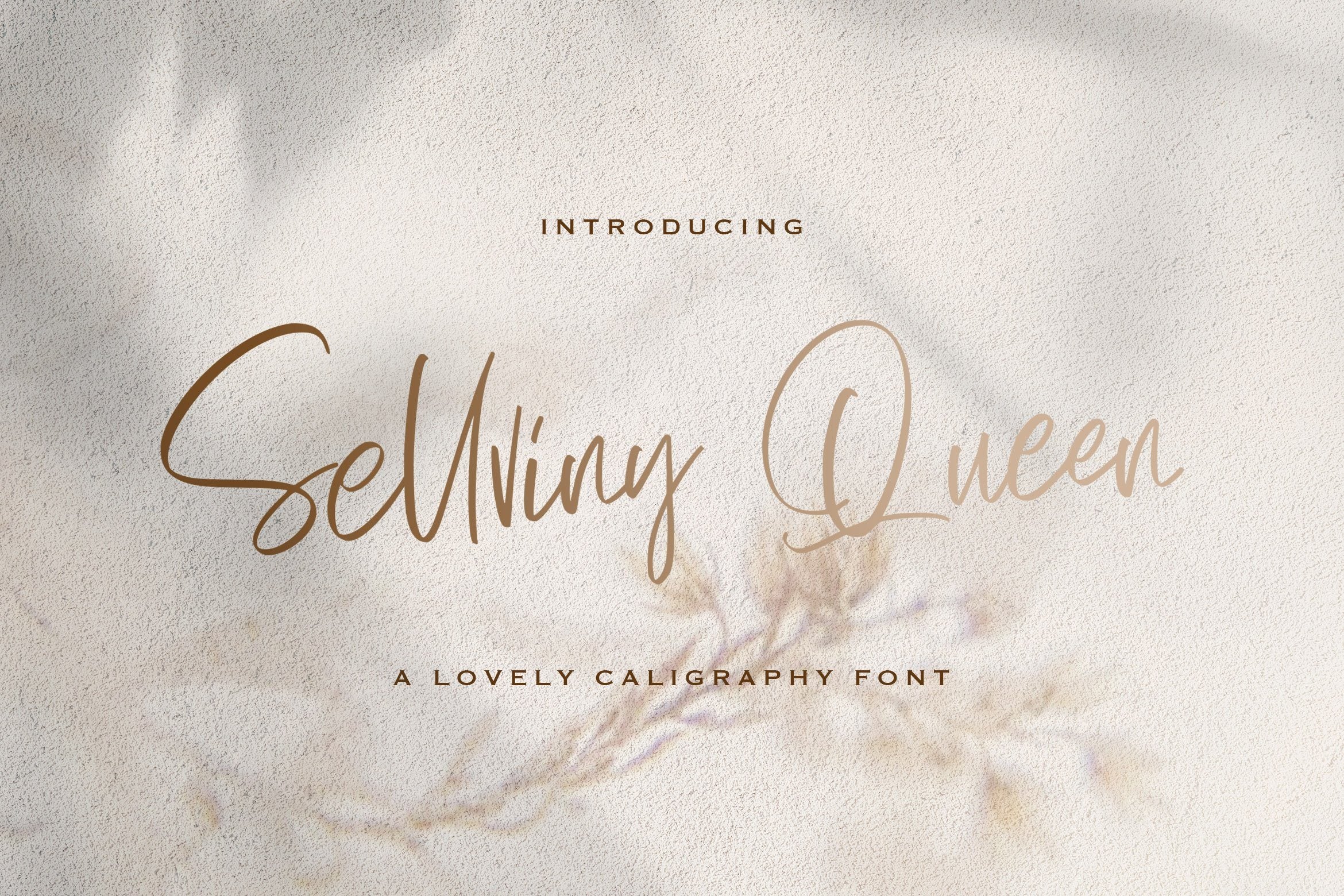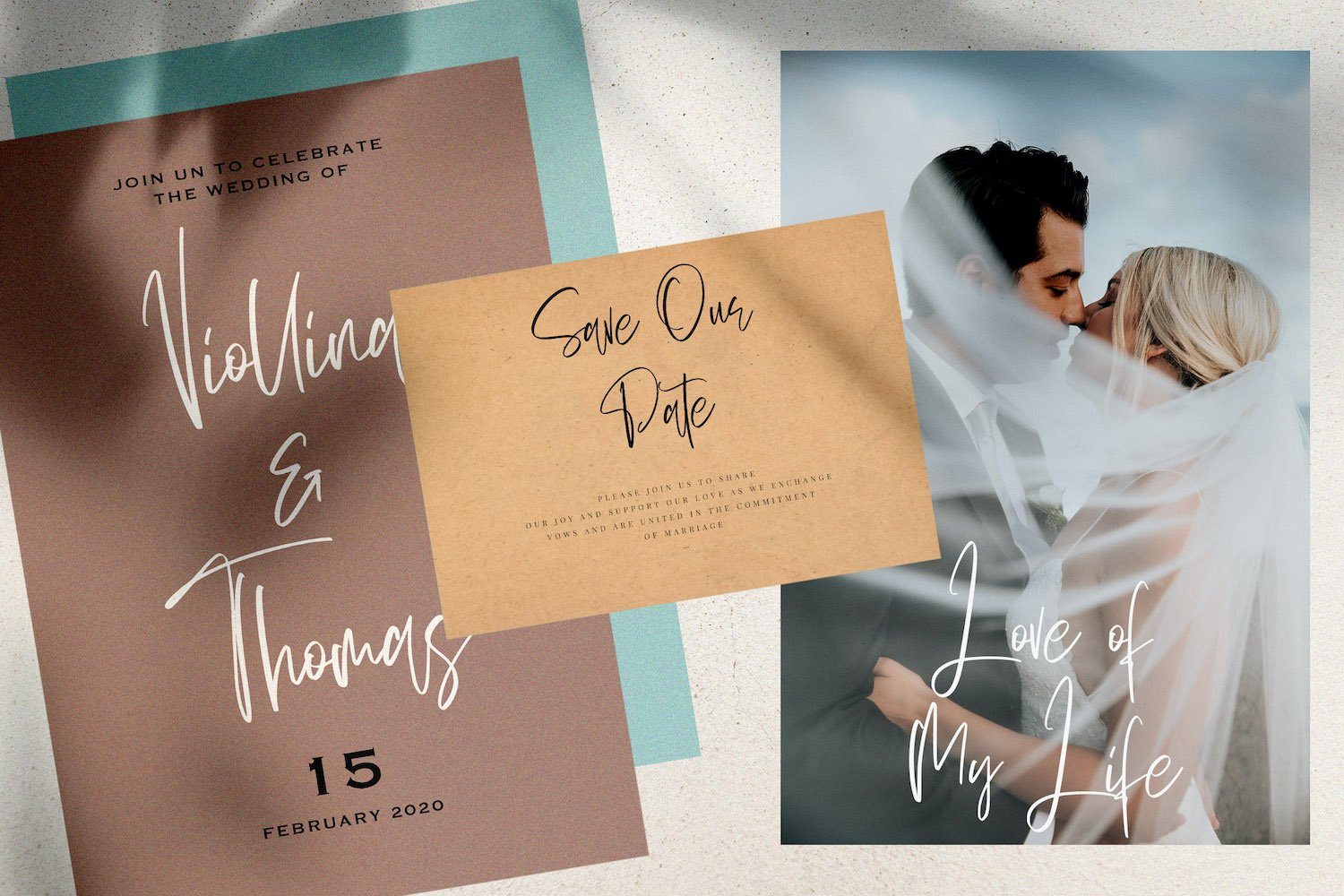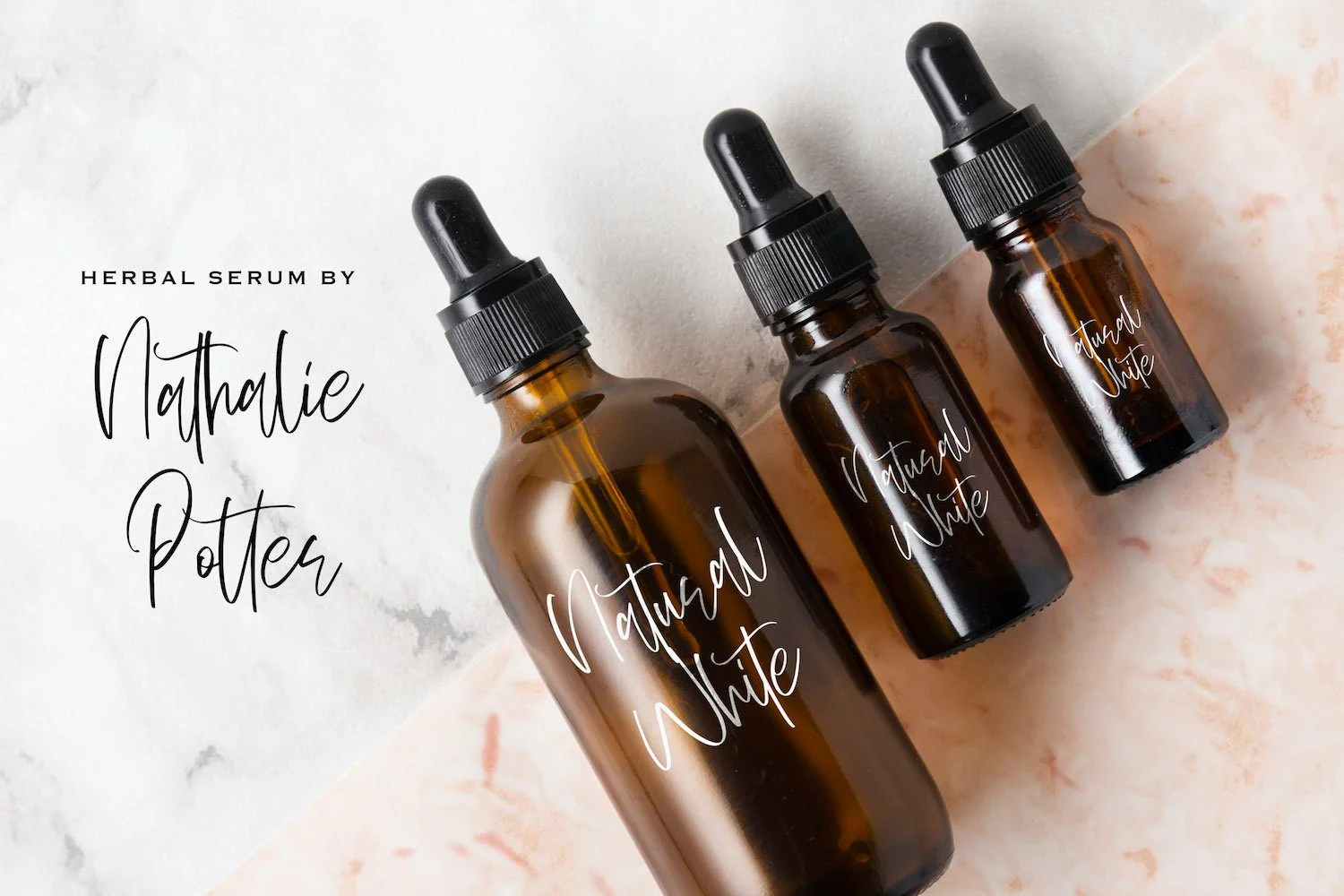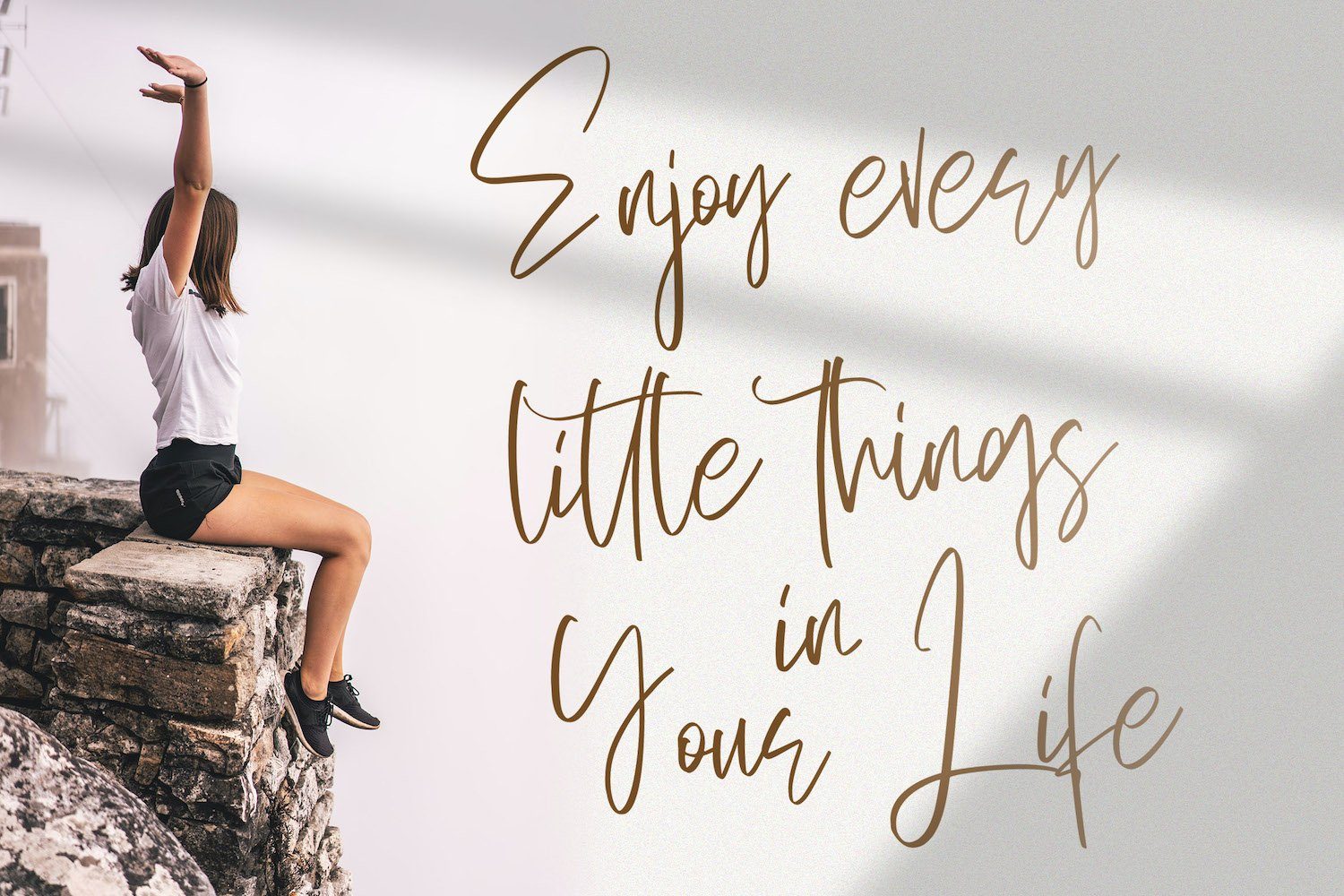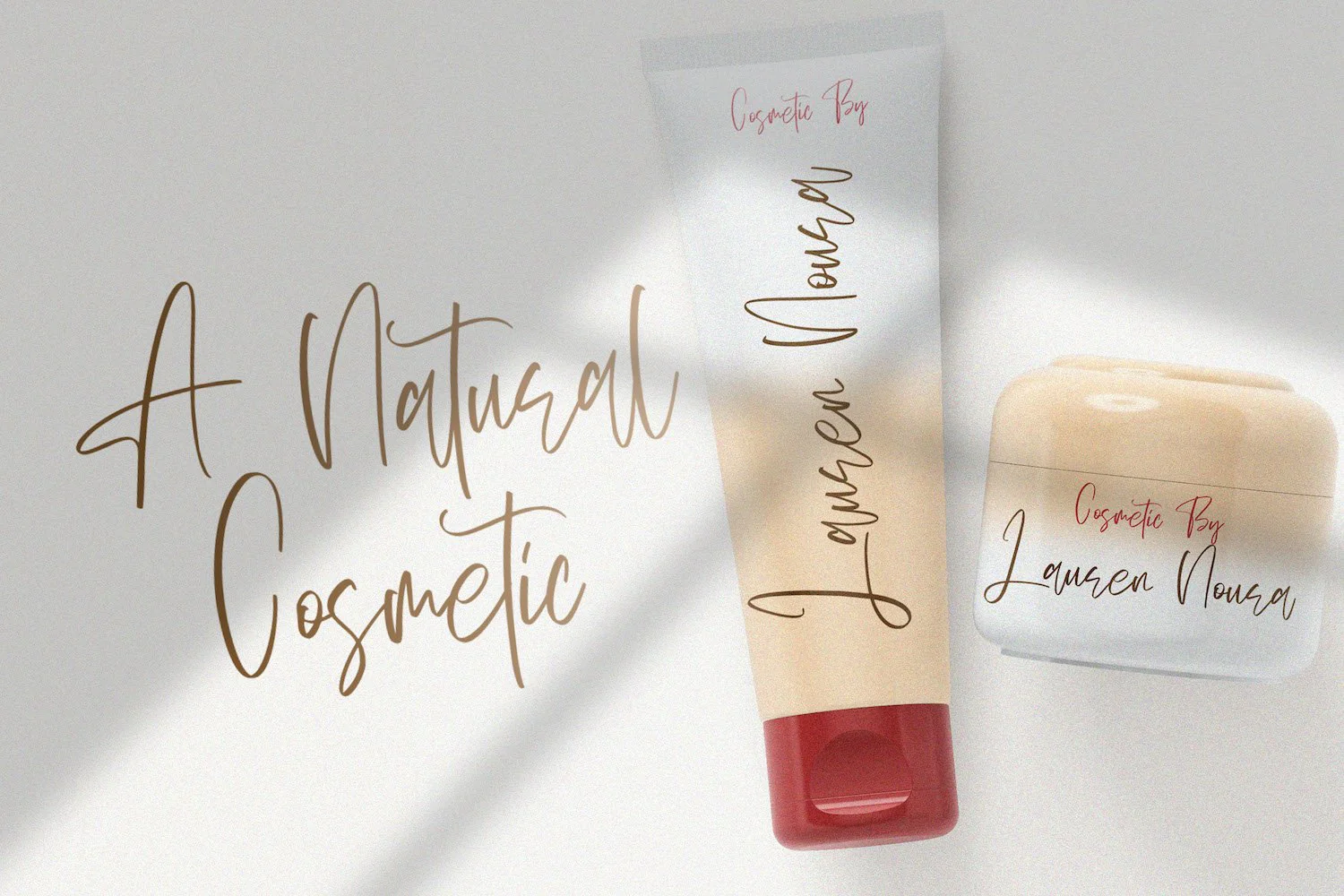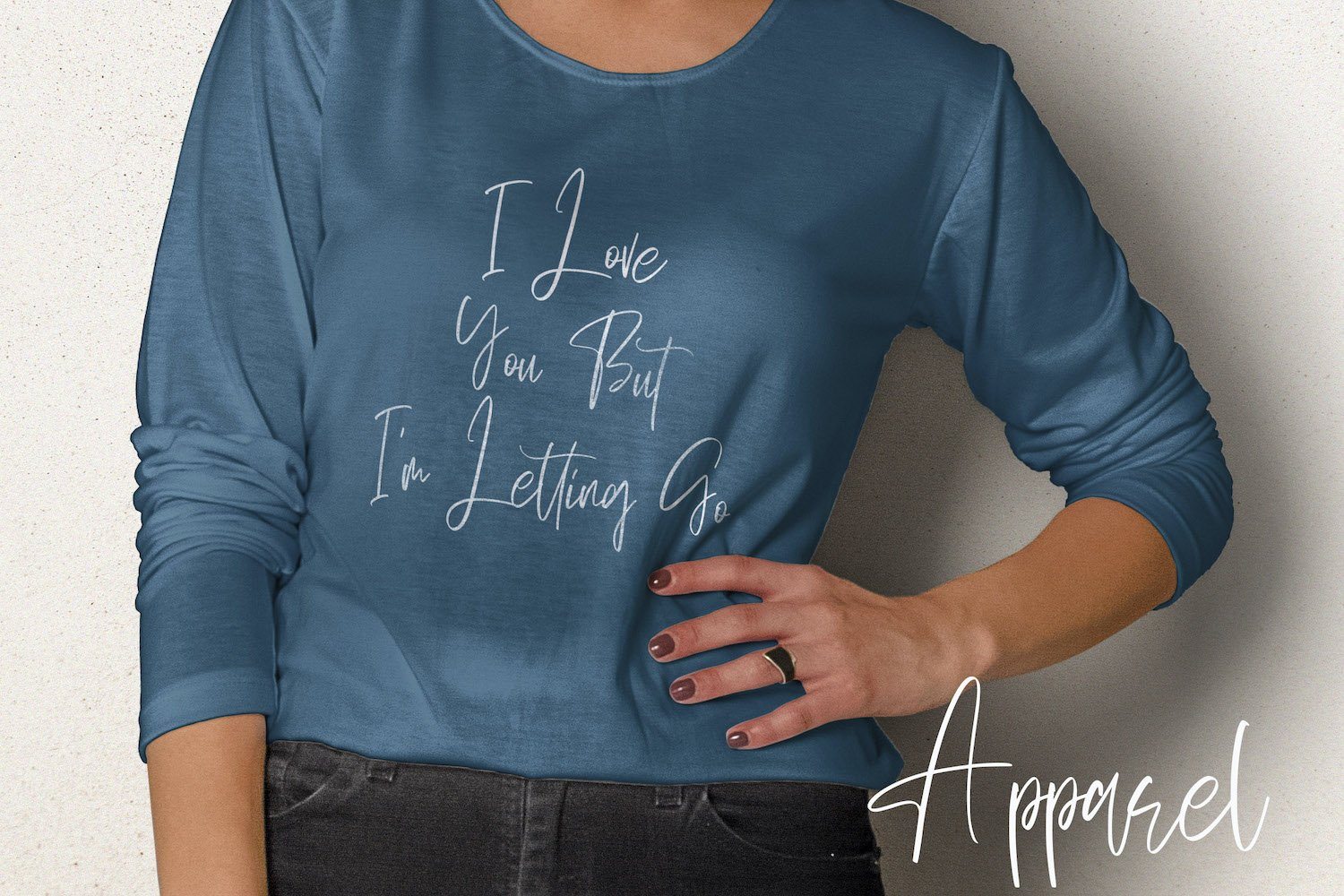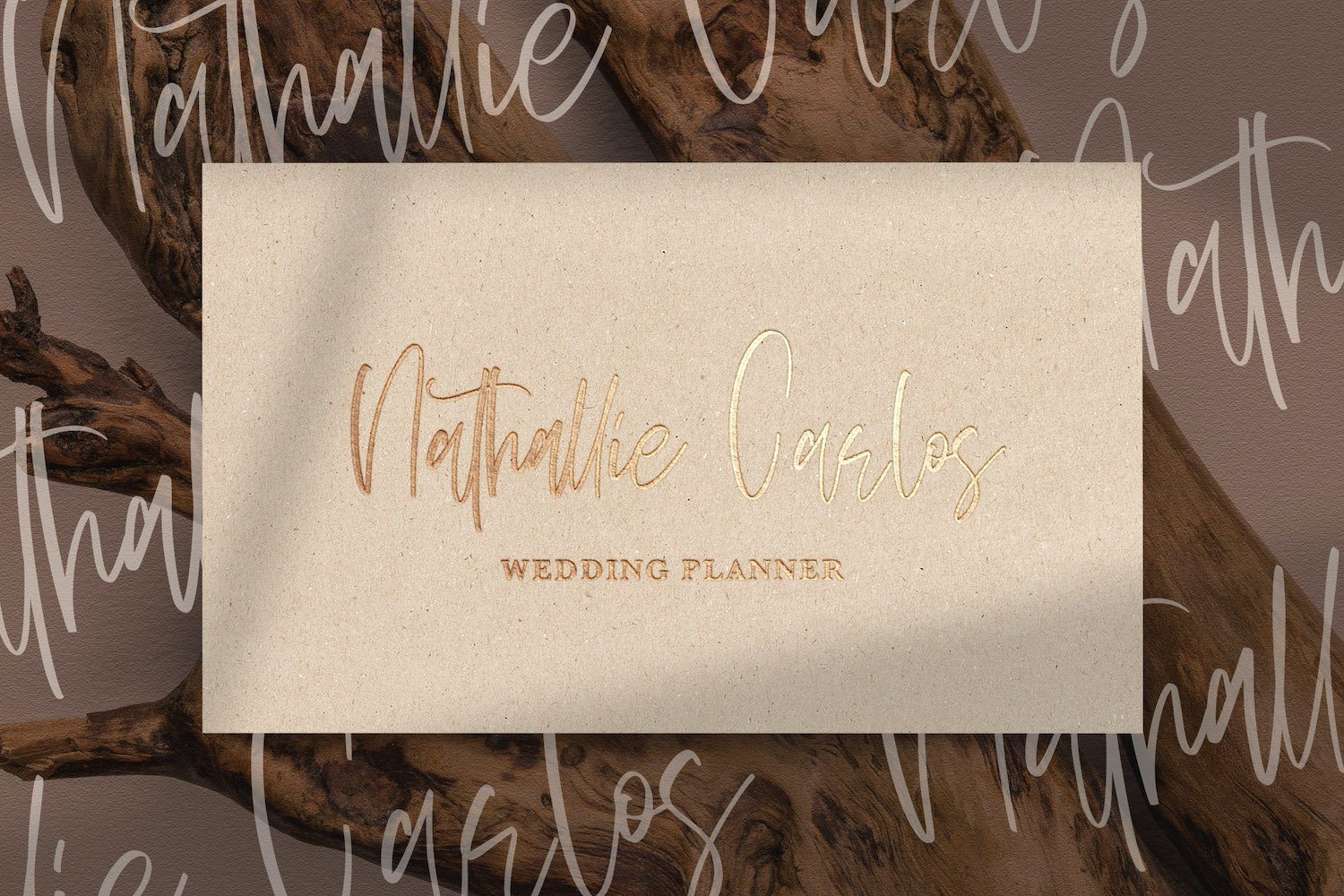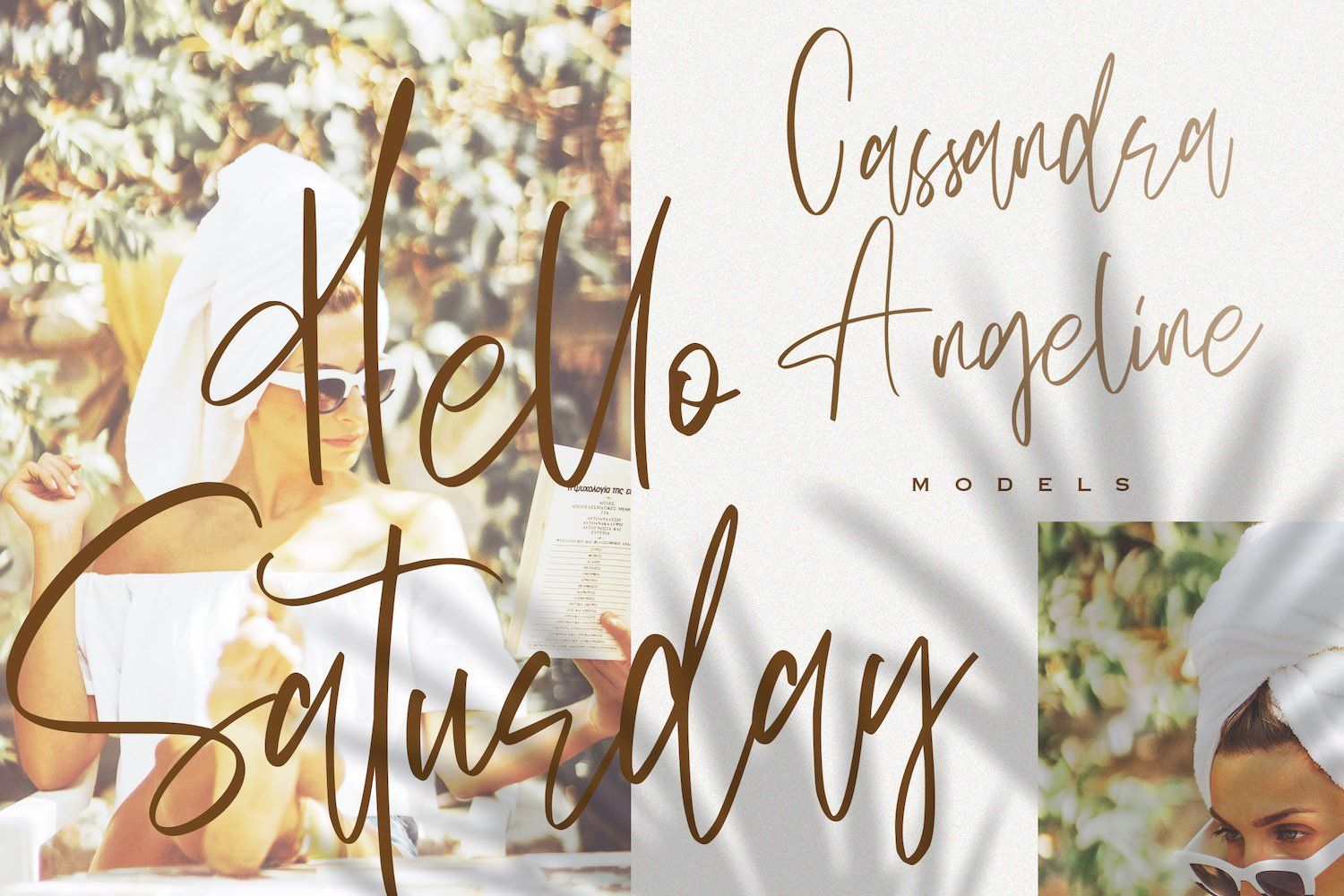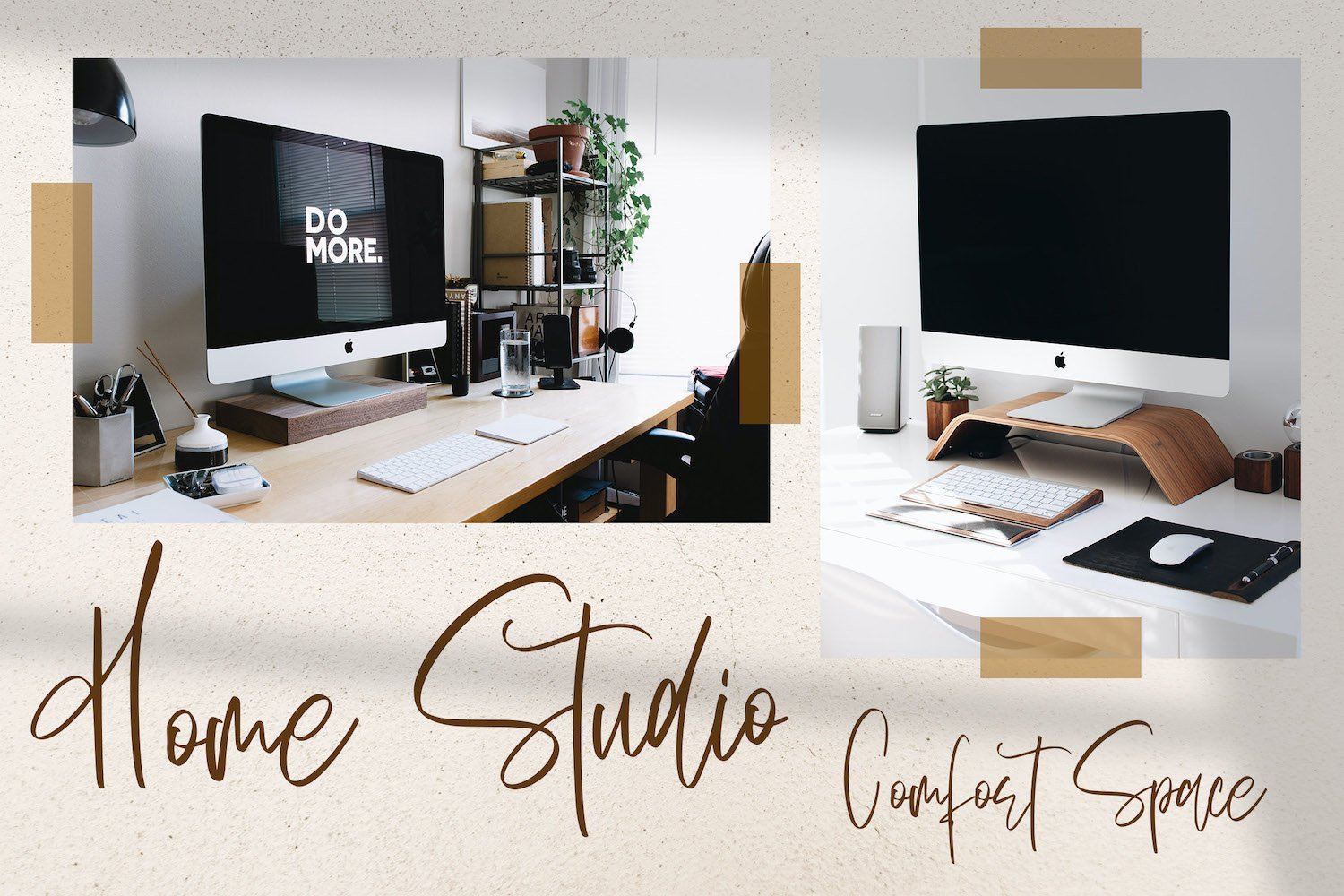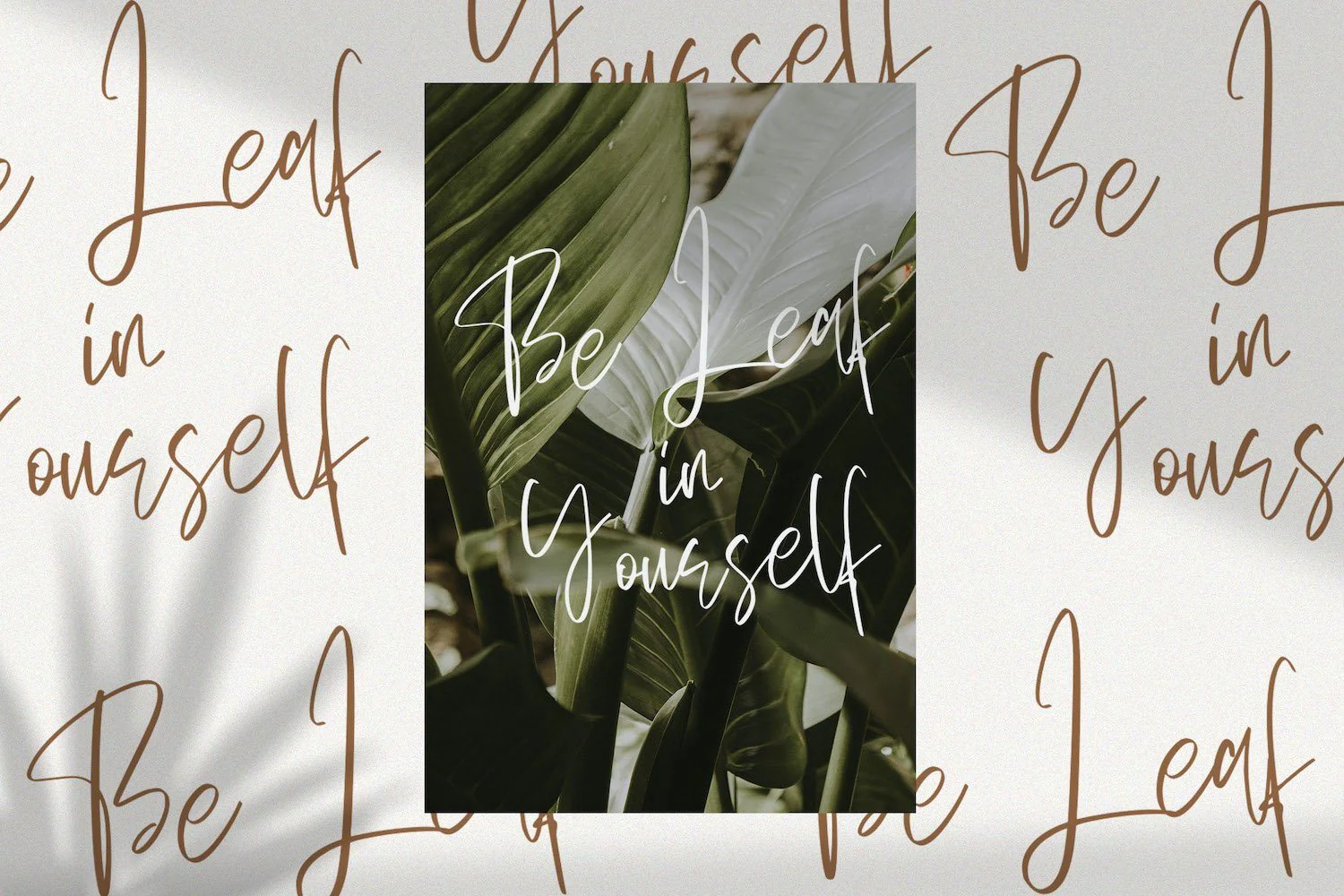
Sellviny Queen - Handwritten Font
Introducing Sellviny Queen - Handwritten Font
Sellviny Queen feels equally charming and elegant. It looks stunning on wedding invitations, thank you cards, quotes, greeting cards, logos, business cards and every other design which needs a handwritten touch.
Introducing Sellviny Queen - Handwritten Font
Sellviny Queen feels equally charming and elegant. It looks stunning on wedding invitations, thank you cards, quotes, greeting cards, logos, business cards and every other design which needs a handwritten touch.